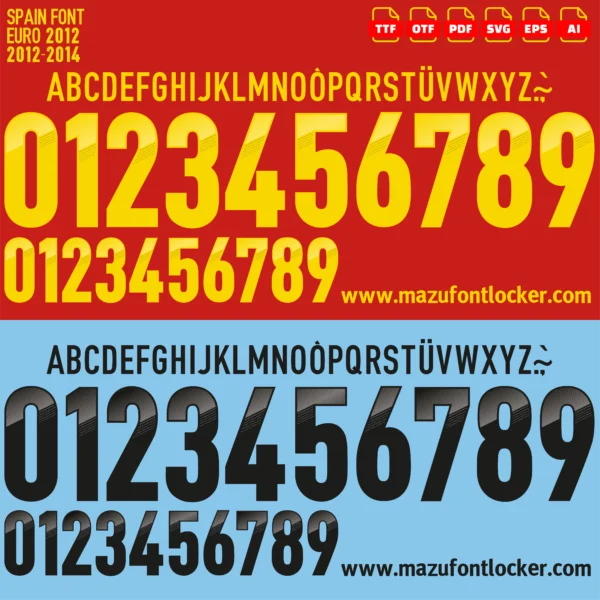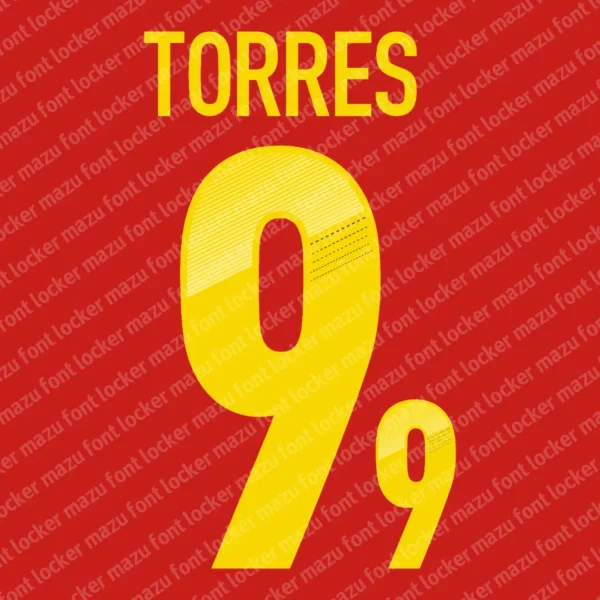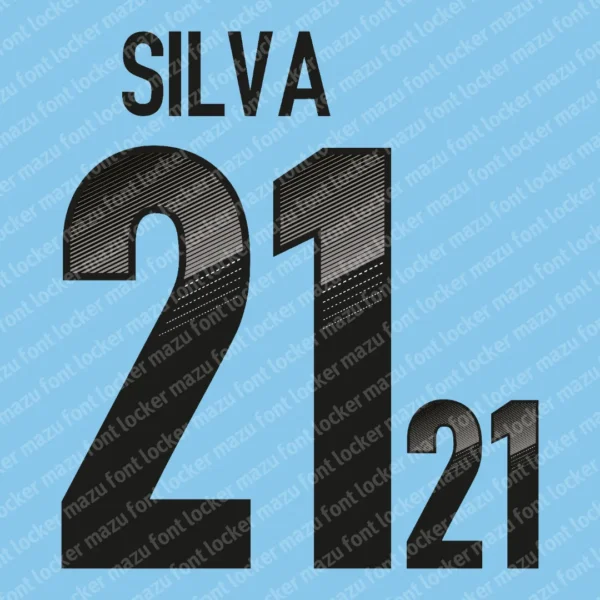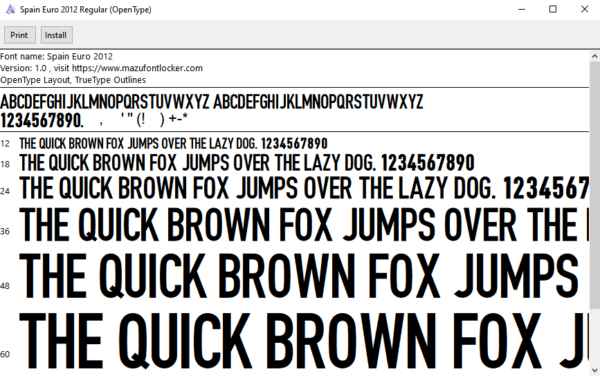
Spain Euro 2012 Font Vector – Legendary La Roja Masterpiece
This premium font captures the commanding, majestic, iron-willed war-machine lettering that embodies the unstoppable La Roja spirit — delivering raw Spanish fire, explosive tiki-taka brilliance, unbreakable resilience, tactical dominance, and legendary champion grit that made Europe tremble.
Spain Euro 2012 Font Vector – Authentic La Roja Typeface
The Spain Euro 2012 Font Vector is a premium typeface that accurately recreates the official match lettering worn by the Spain national team during their triumphant Euro 2012 campaign. This high-quality vector font kit captures the bold, elegant, and iconic typography that represents the pride, technical mastery, and rich football heritage of La Roja.
Why Choose Spain Euro 2012 Font Vector
This font stands out because of its sharp vector precision and strong national identity. Every letter and number is crafted to match the exact style used on the players’ shirts during the Euro 2012 campaign. Whether you are making realistic kit templates or exciting La Roja content, the Spain Euro 2012 Font Vector gives your designs that authentic Spanish look from their golden era.
The letterforms in the Spain Euro 2012 Font Vector are tall, bold, and highly readable. The strokes have a strong, clean weight with excellent edge definition that looks powerful on the back of jerseys while maintaining classic Spanish spirit and modern elegance.
- Full uppercase A–Z and numbers 0–9 in authentic Spain Euro 2012 style
- Multilingual Latin character support including diacritics
- Includes the exact crest glyph placement used under player numbers
Spain Euro 2012 Campaign
Euro 2012 marked the pinnacle of Spain’s golden generation. La Roja delivered football artistry at its finest, securing back-to-back European Championship titles with tiki-taka mastery, tactical brilliance, and an unbeatable winning spirit.
Legendary players like Iniesta, Xavi, Casillas, and Busquets united to create unforgettable moments that cemented Spain’s place as one of the greatest teams in football history.
The Spain Euro 2012 Font Vector is an independently designed typeface package. It is carefully crafted to replicate the official shirt lettering style of the Euro 2012 tournament. This font kit is perfect for creative projects, fan edits, nostalgic jersey designs, and custom football graphics.